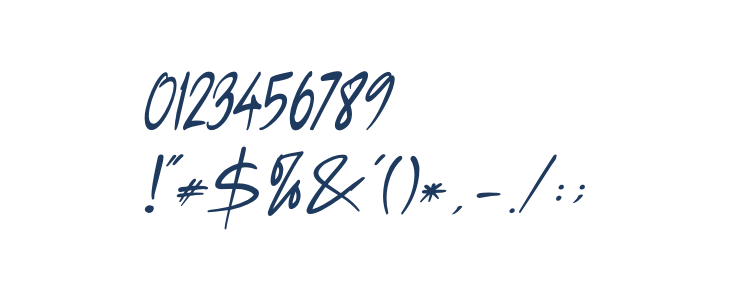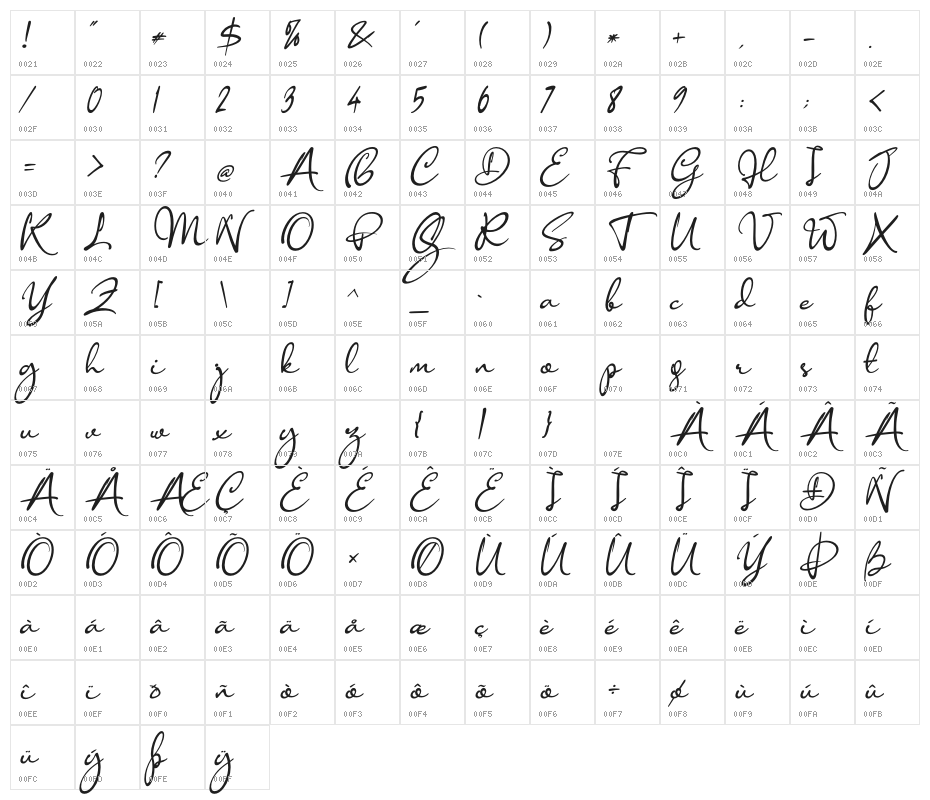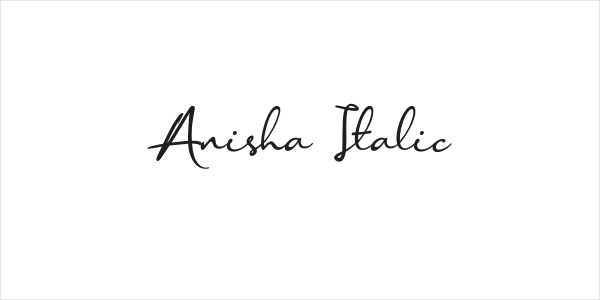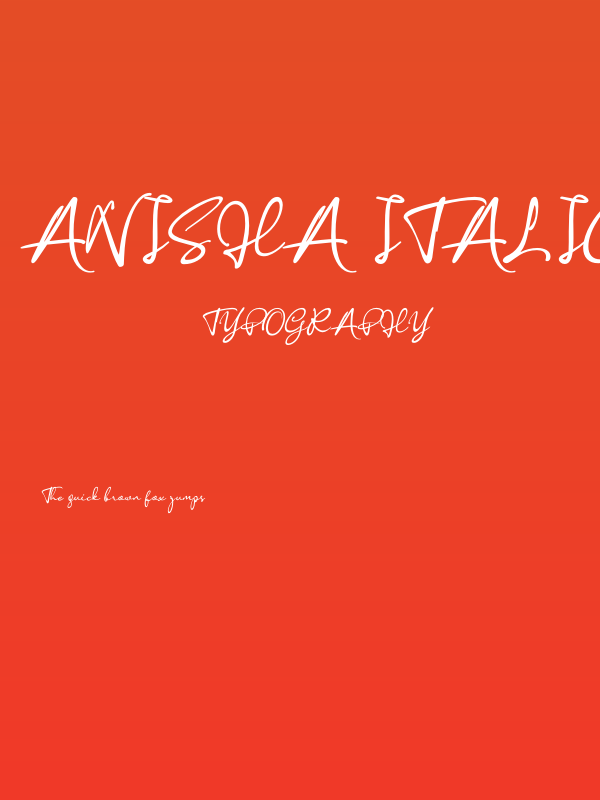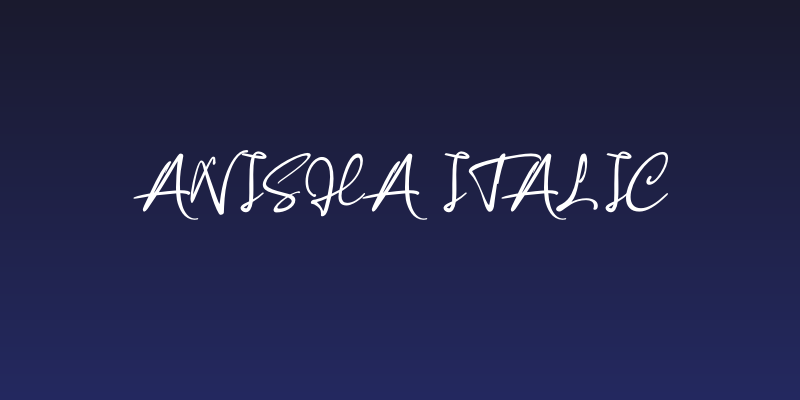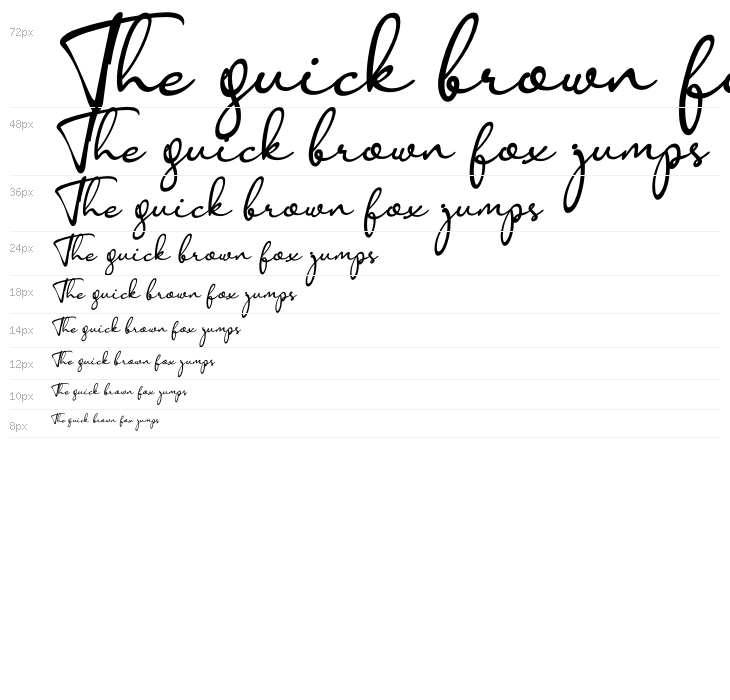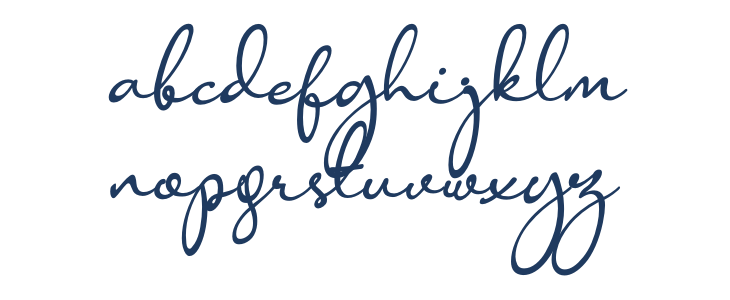
Anisha Italic Font
Anisha Italic Description
This font features a flowing, cursive style with elegant, sweeping strokes that give it a sophisticated and artistic appearance. The letters are interconnected, creating a seamless and fluid look, reminiscent of traditional calligraphy. The uppercase letters are bold and prominent, while the lowercase letters maintain a consistent flow, enhancing readability. The numerals and special characters are designed to match the script style, ensuring uniformity across all characters. This font exudes a sense of elegance and grace, making it suitable for formal and creative applications.